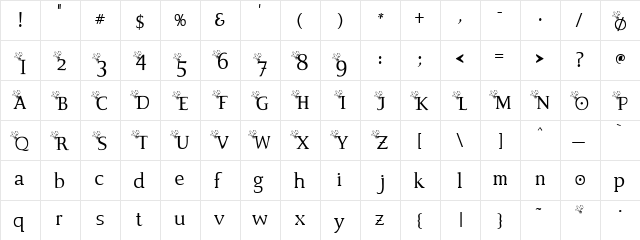
Accipiter Regular
Design Context for Accipiter Typeface
Accipiter offers clean, dependable letterforms without strong stylistic allegiance, making it a practical choice for designers who need flexibility.
Pro Tip: Use Accipiter in both headline and body roles to test its range before committing to a single application.